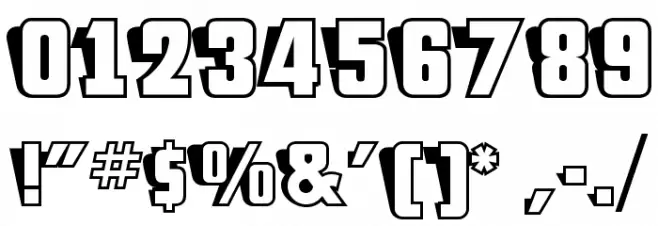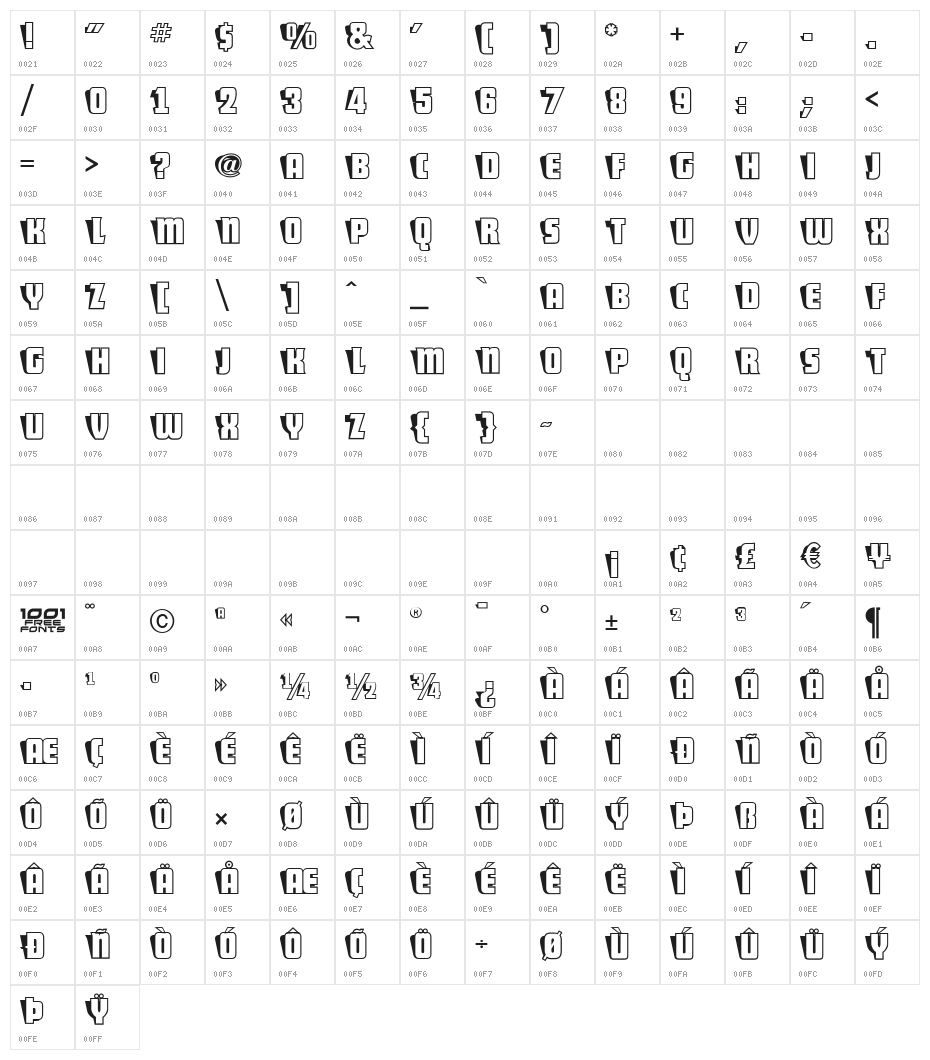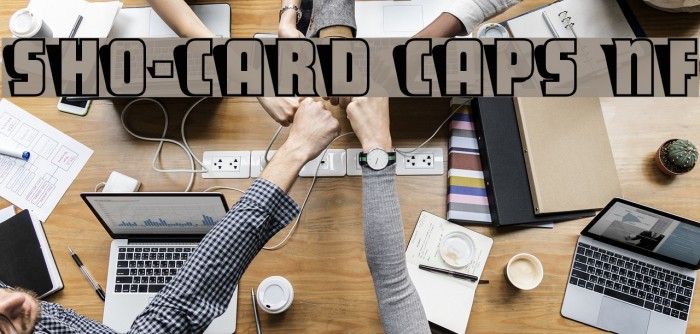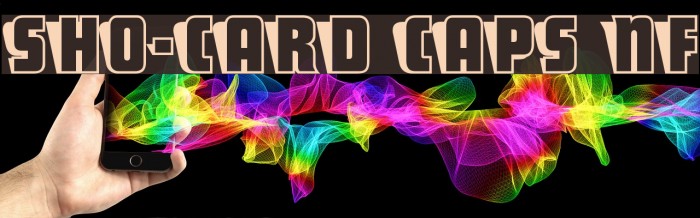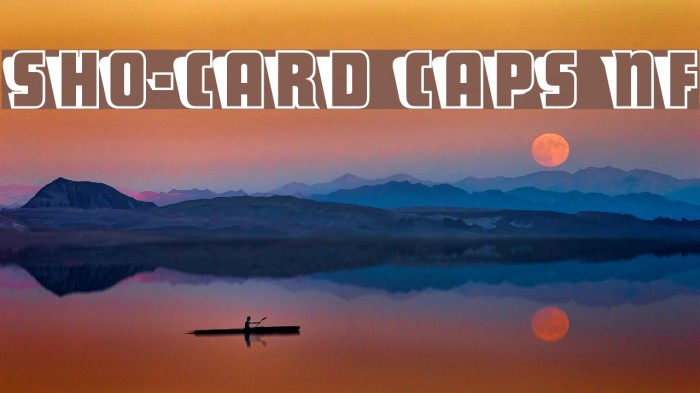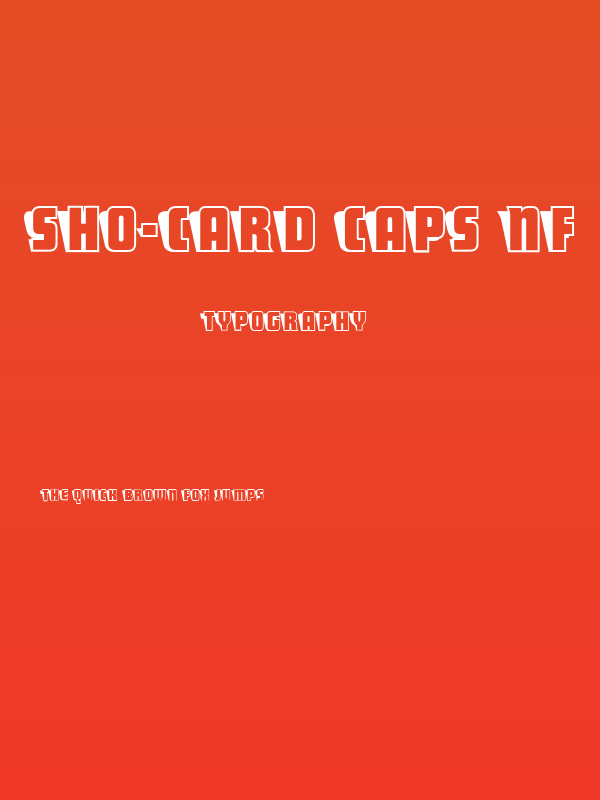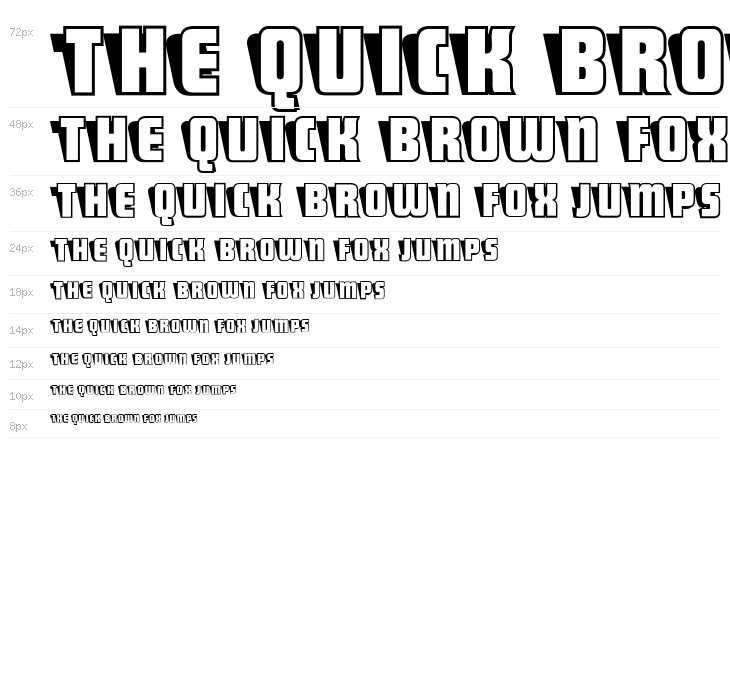
Sho-Card Caps NF Font
Sho-Card Caps NF Description
This font features a bold, three-dimensional style with a strong shadow effect, giving it a striking and impactful appearance. The characters are uppercase and lowercase with a consistent width, creating a uniform look. The design is reminiscent of vintage signage, with a playful yet robust aesthetic. The numbers and special characters maintain the same bold style, ensuring cohesion across all glyphs. The font's distinct shadowing adds depth, making it ideal for attention-grabbing headlines or titles.
| Proposed Projects | Ideal for retro-themed posters, eye-catching headlines, branding materials, and signage. |